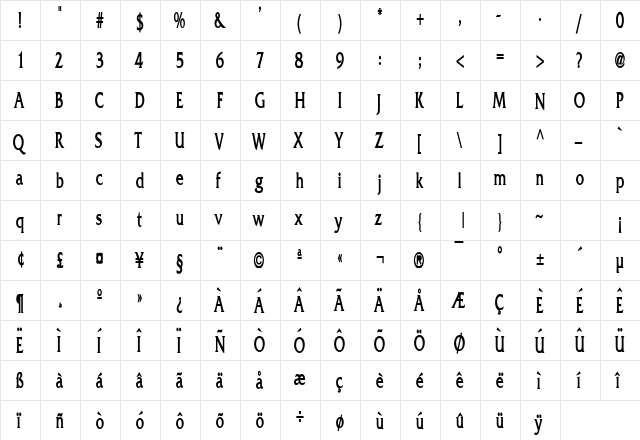
Franco Thin Bold
Design Context for Franco Thin Typeface
Franco Thin offers clean, dependable letterforms without strong stylistic allegiance, making it a practical choice for designers who need flexibility. The heavy weight commands attention and anchors typographic hierarchies.